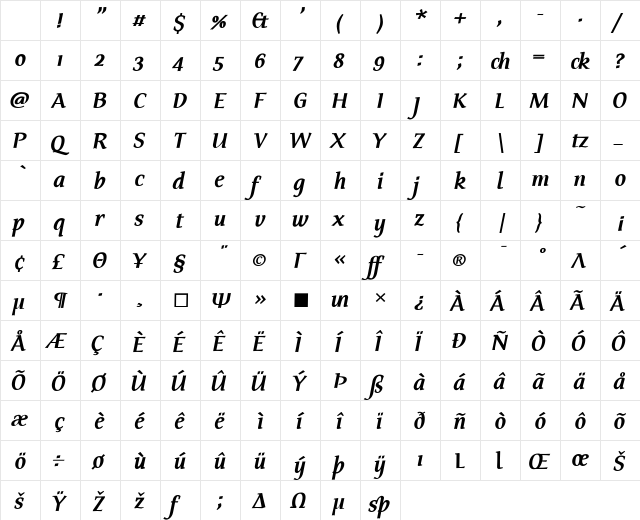
Complete TarquiniusPlus Bold Italic glyph index. Displaying only characters natively supported by TarquiniusPlus Bold Italic font.
TarquiniusPlus is a composed and adaptable typeface that performs quietly and consistently across a wide range of design contexts. The slanted form adds forward momentum and visual energy. Its bold stroke weight gives it real presence on the page.
Who designed the TarquiniusPlus Bold Italic font?